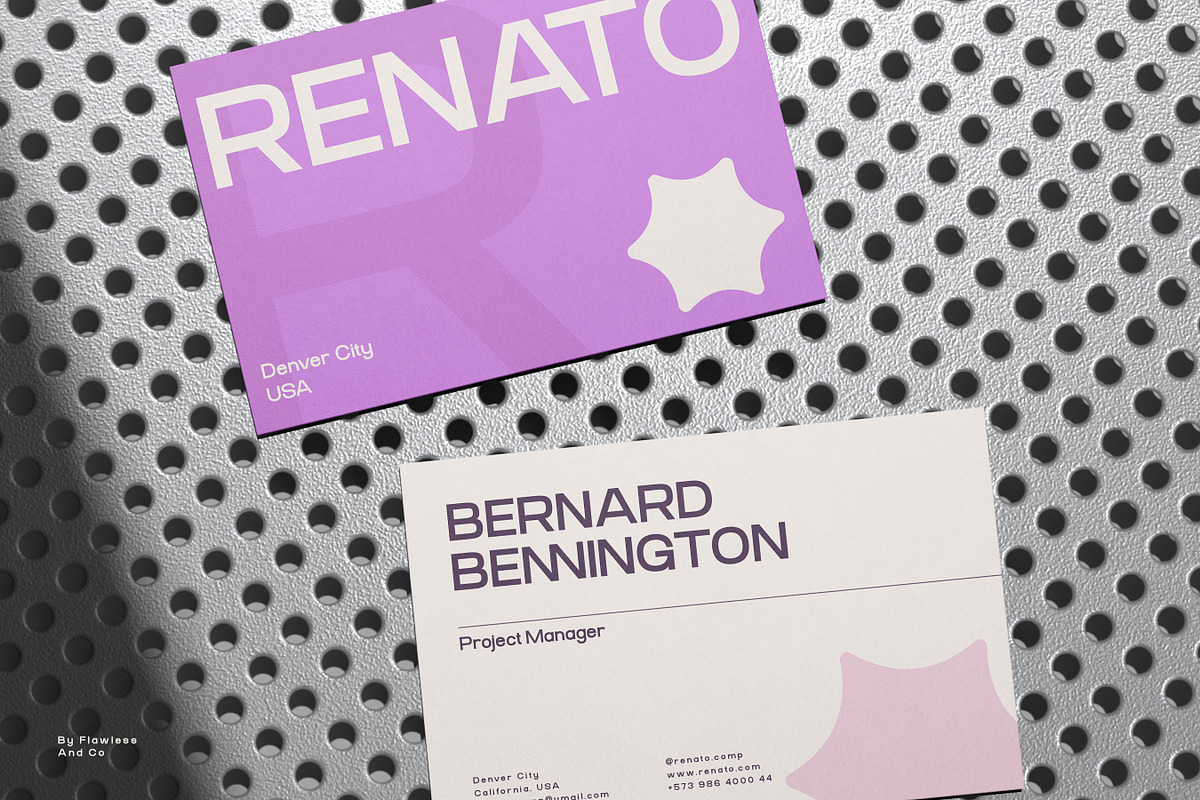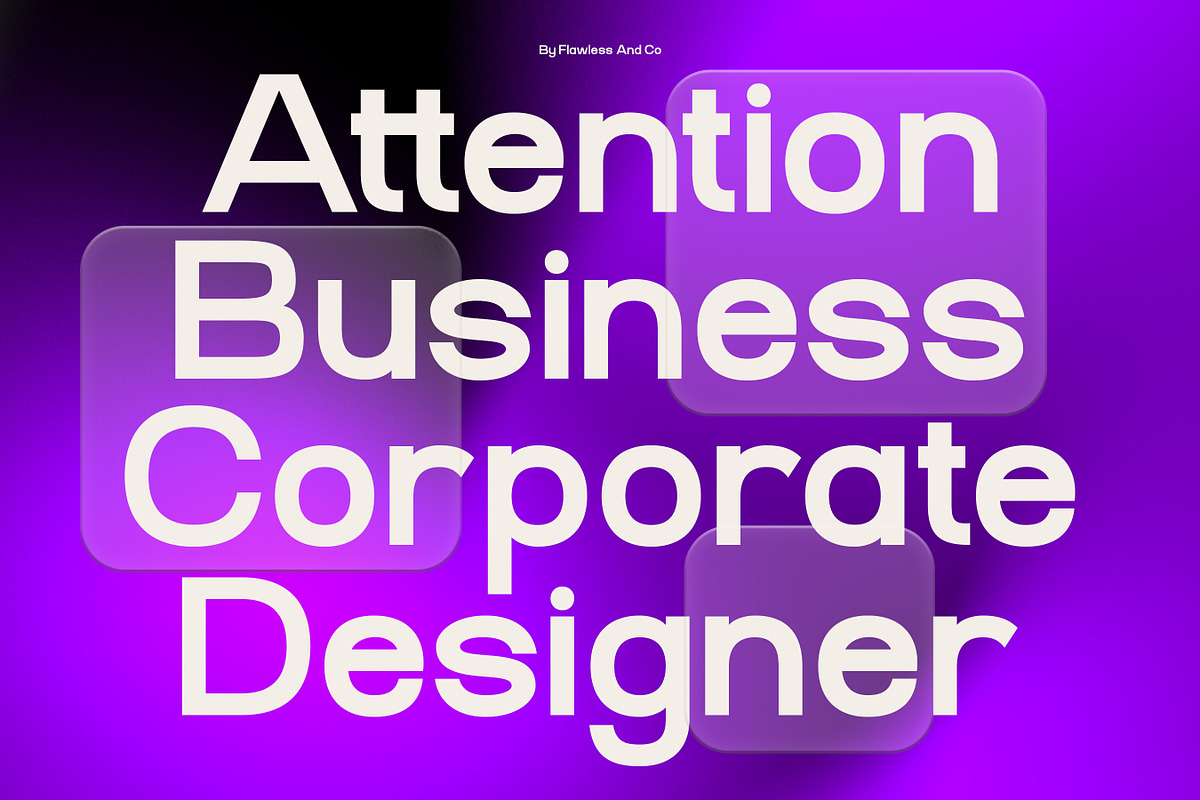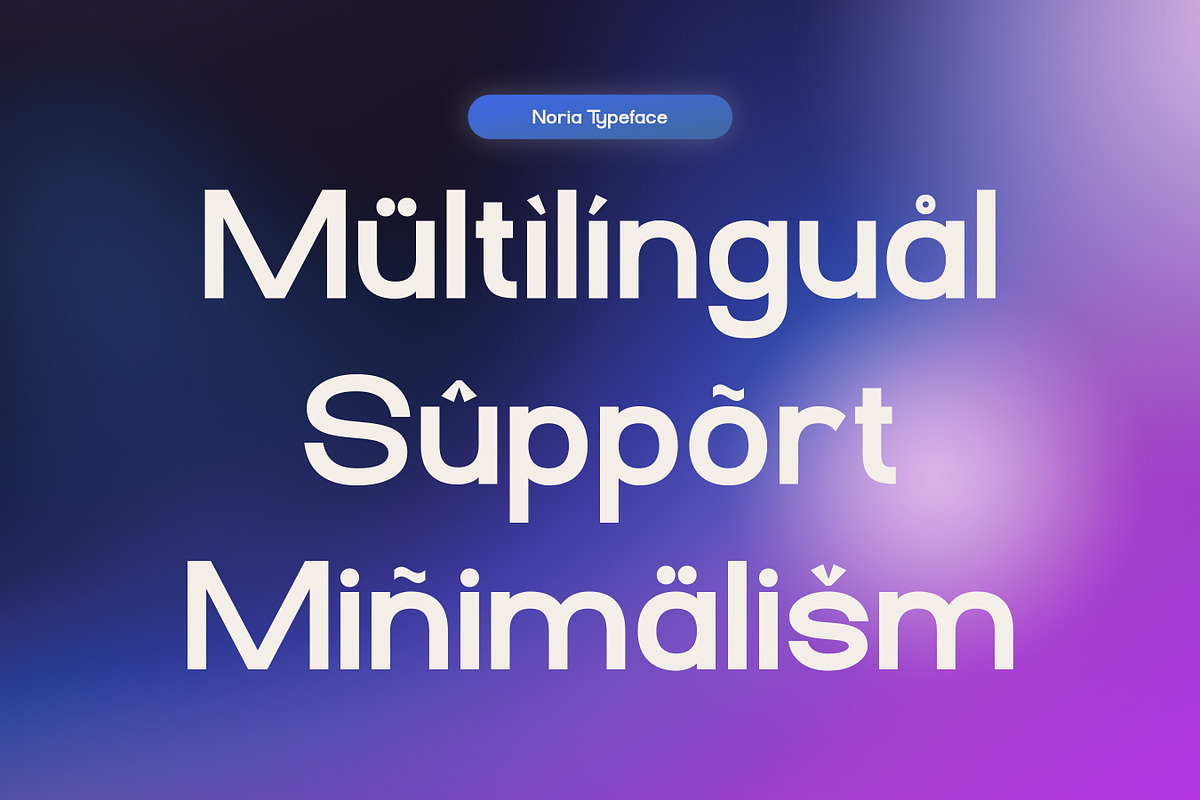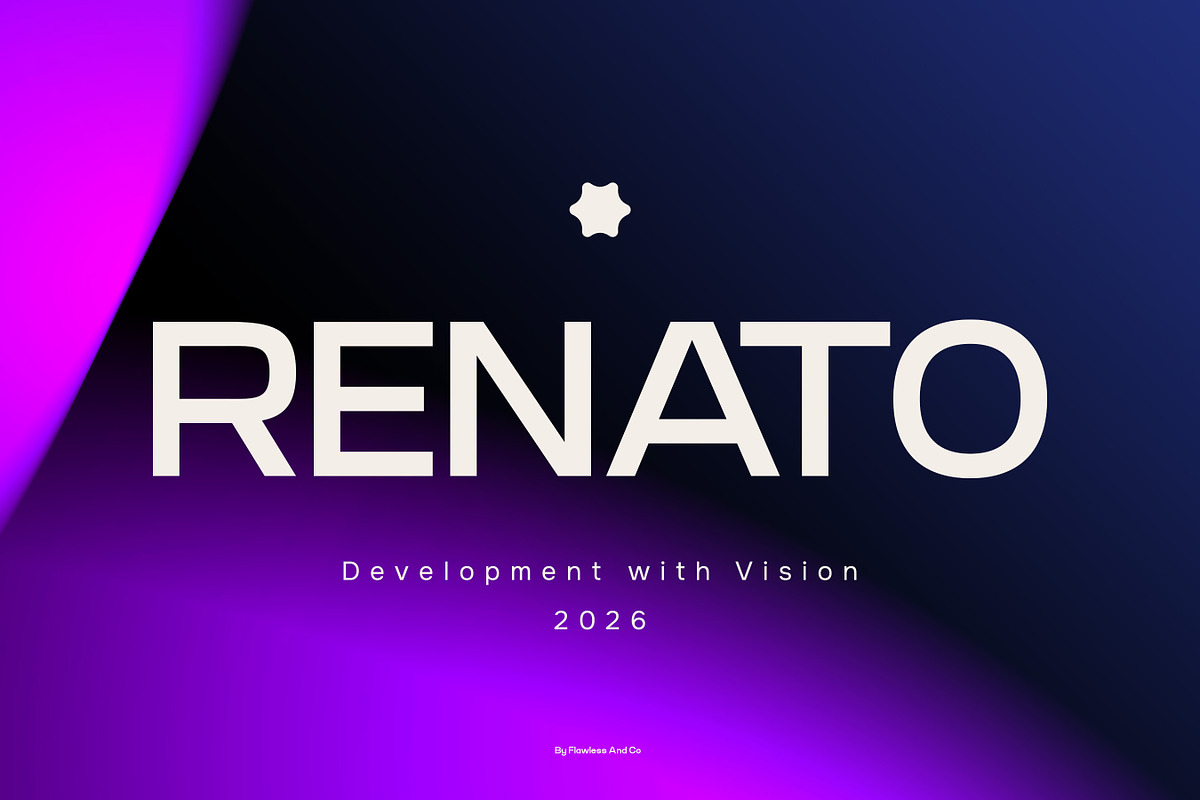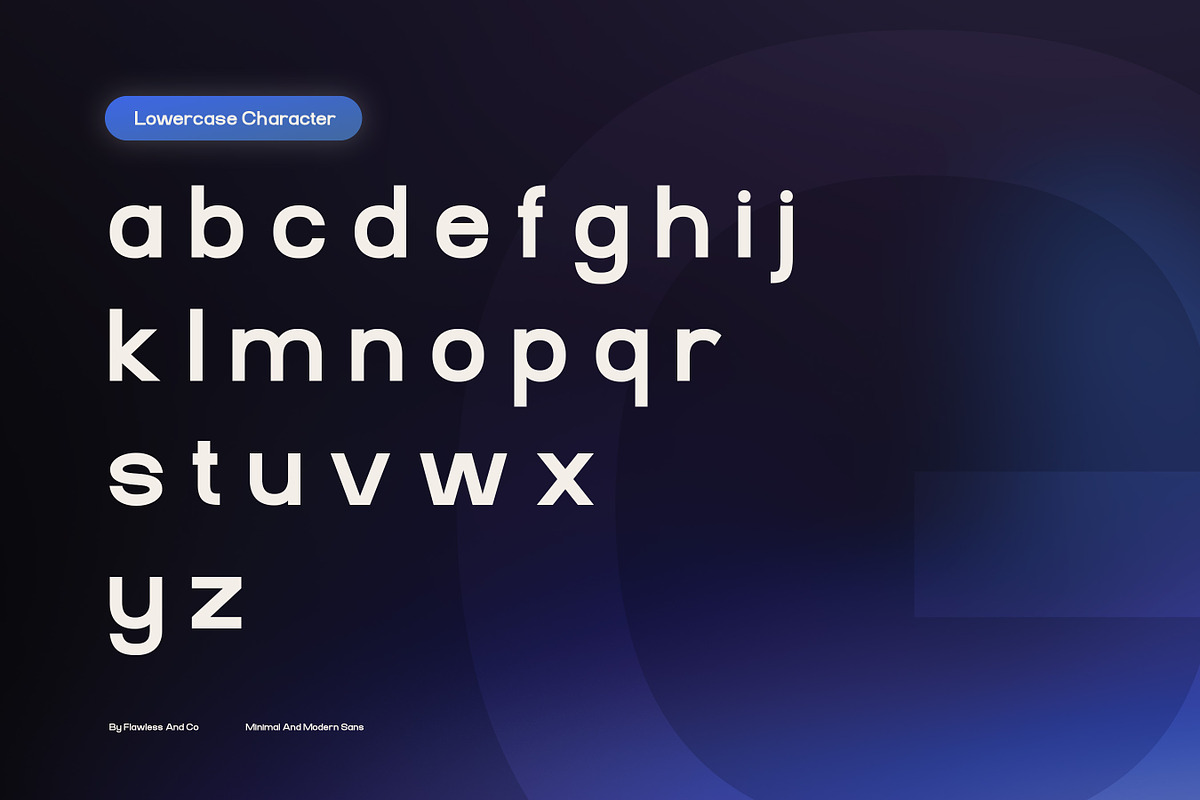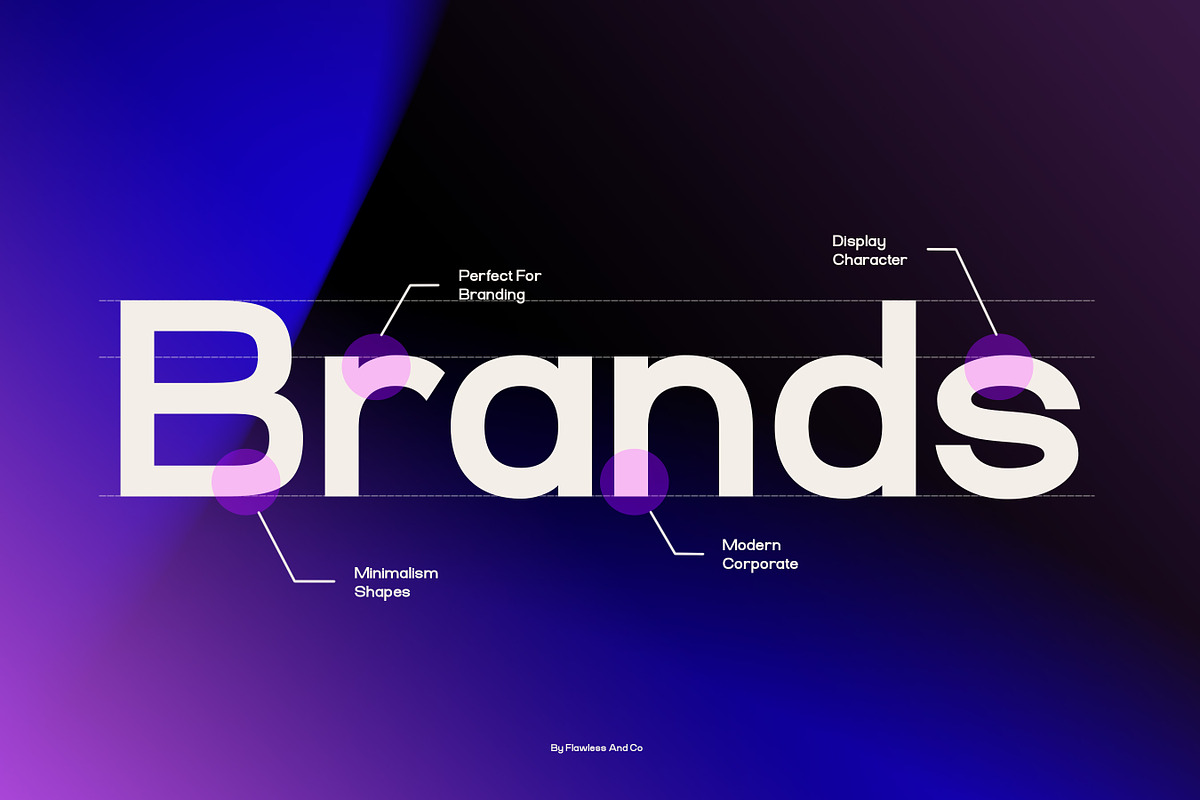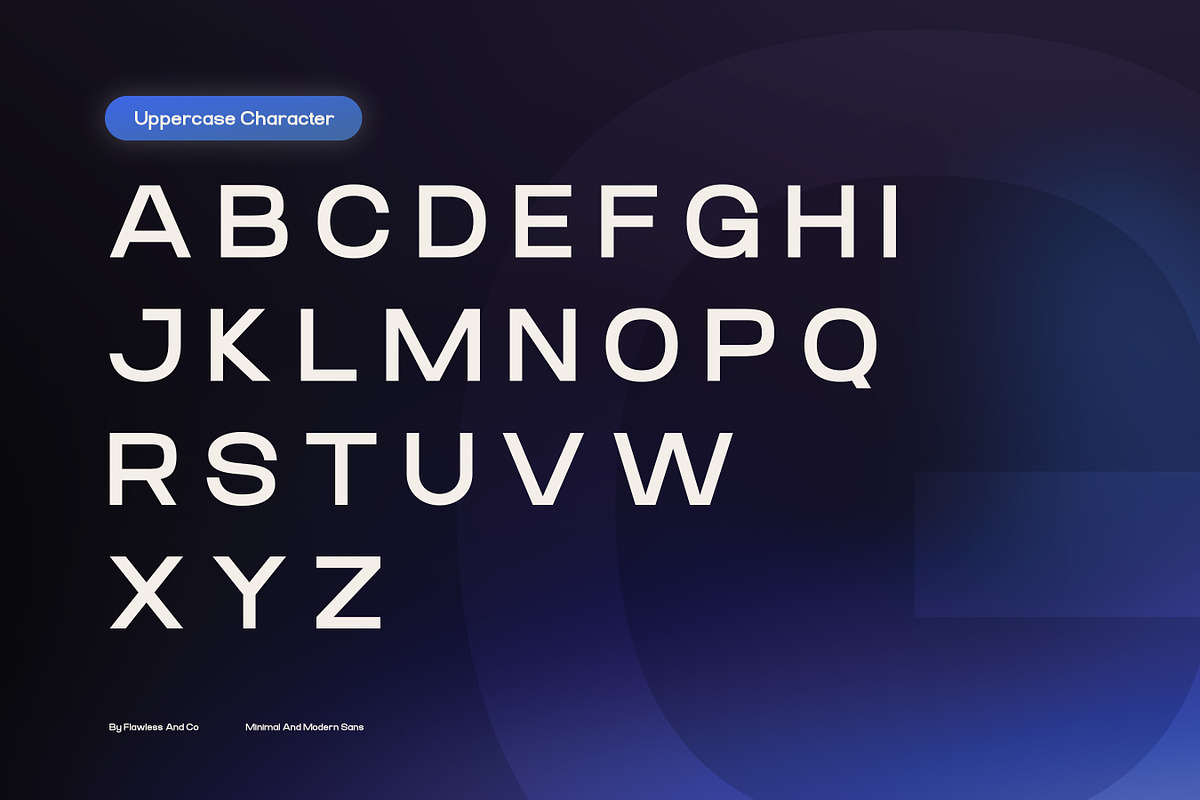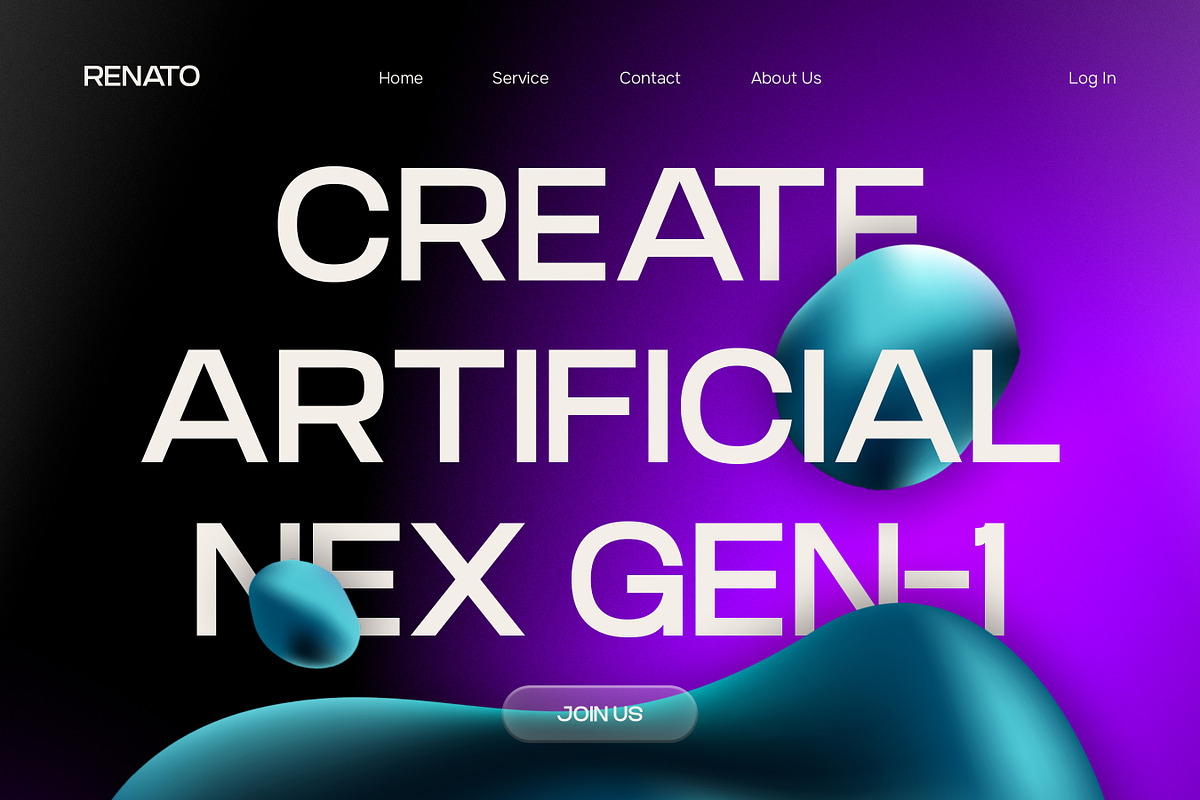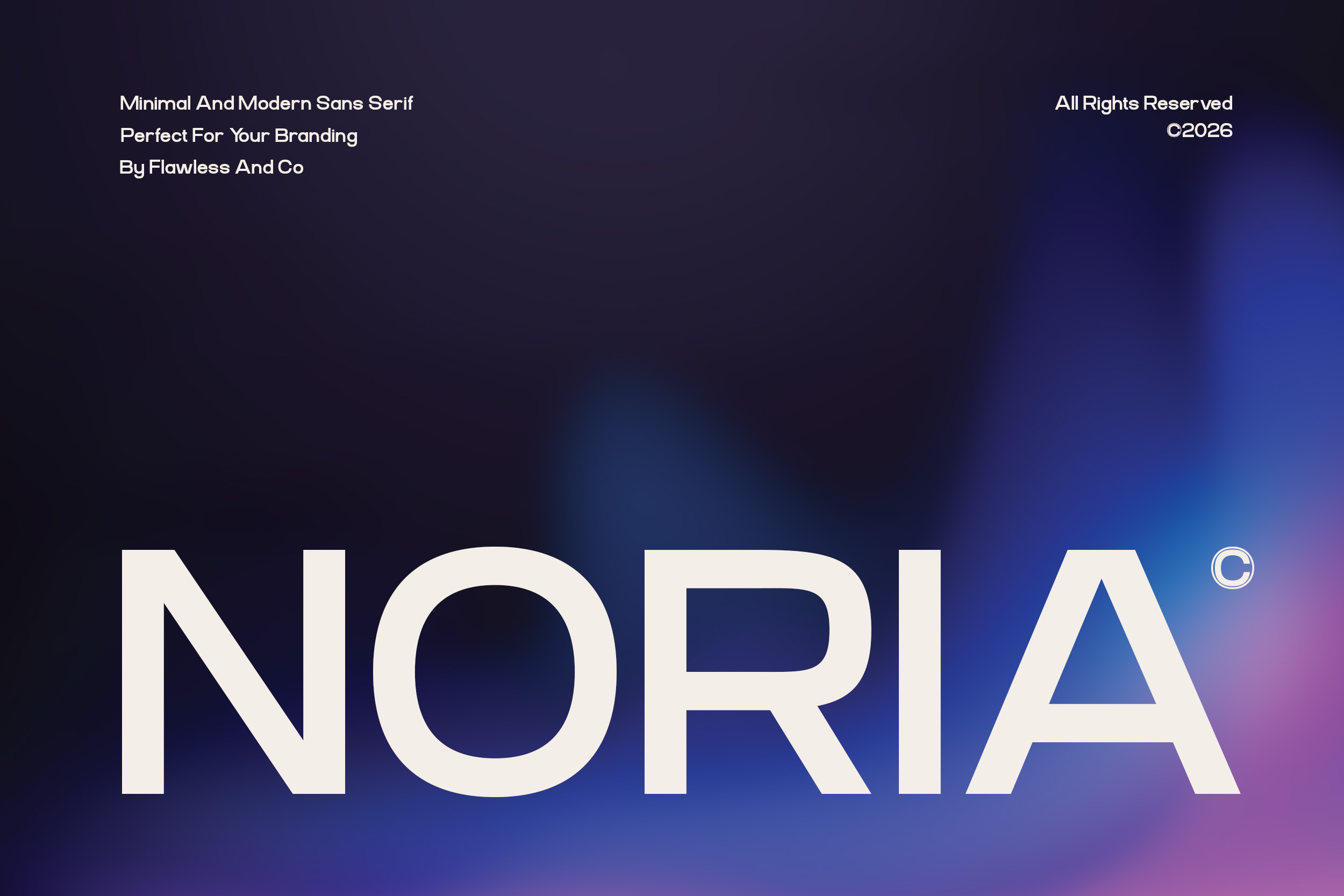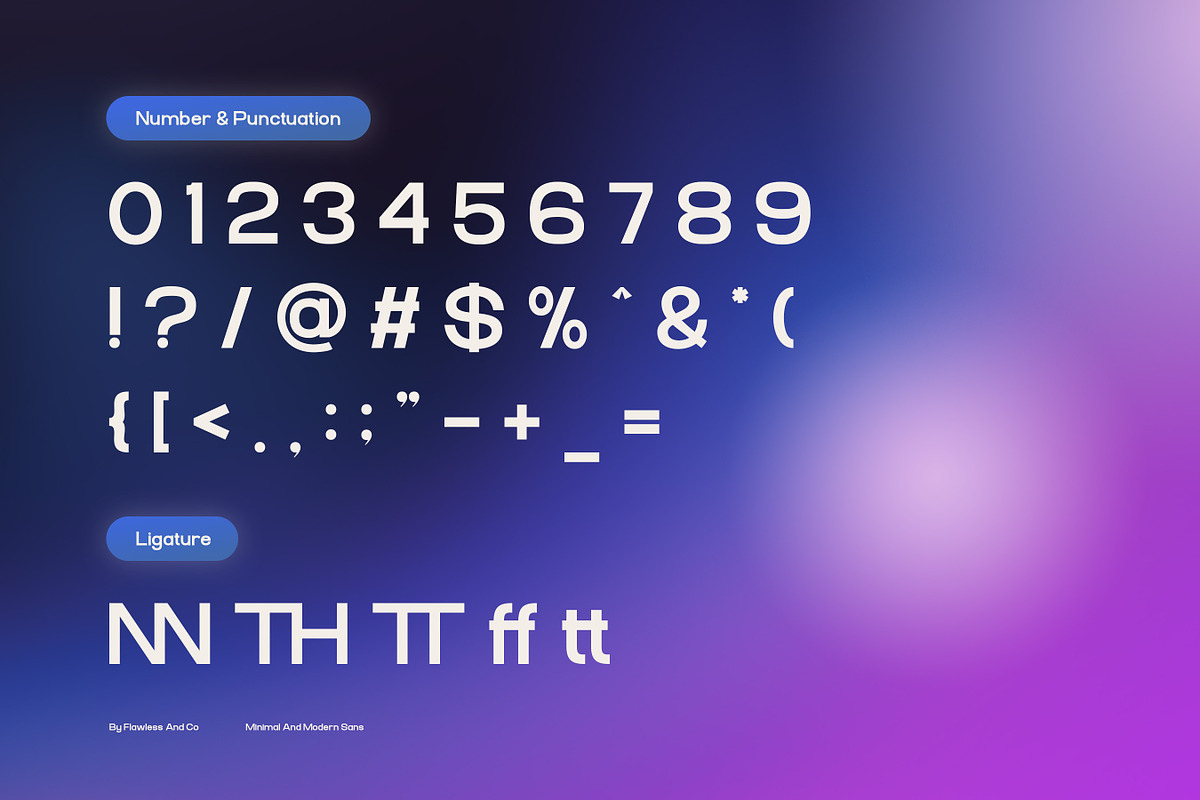
Noria - Modern Sans Serif Font
Noria is a minimalism and modern sans serif font crafted with clean lines and refined simplicity, making it perfect for branding projects. Its well-balanced letterforms and readable structure create a professional and contemporary look that feels both timeless and highly versatile. Designed to communicate clarity and confidence, Noria allows your brand identity to stand out with a strong yet subtle presence.
Who Should Use Noria?
Noria is ideal for designers, creatives, and businesses looking for a clean and modern typeface tailored for branding. It’s especially suited for projects that require a minimalist, professional, and elegant visual identity.
Suitable For:
- Branding and identity design
- Modern logo creation
- Corporate and business materials
- Editorial and layout design
- Web and UI/UX projects
- Packaging design
- Social media graphics
- Clean and contemporary typography